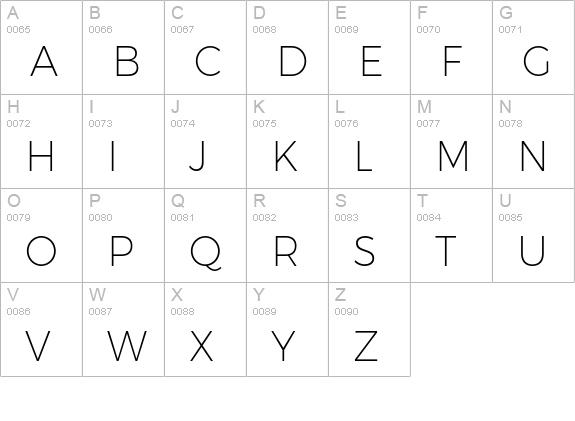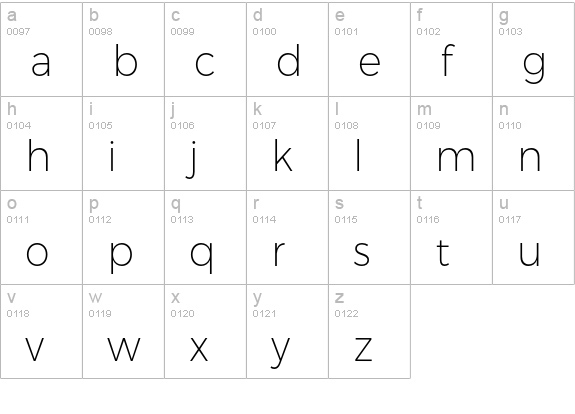
Trueno UltraLight Font Details
Trueno UltraLight is an airy, ultra-refined variant in the Trueno typeface family \xE2\x80\x94 well suited to minimalist headlines and refined display use.
Trueno UltraLight font is a stunning typeface that effortlessly combines elegance and simplicity. With its delicate and refined strokes, this font exudes a sense of sophistication and finesse. Its ultra-lightweight design adds a touch of grace to any project, making it a go-to choice for those seeking a font that is both chic and versatile. The Trueno UltraLight font offers a harmonious balance between contemporary aesthetics and timeless appeal. Its clean lines and slender letterforms create a sense of fluidity, making it perfect for various design purposes. Whether you are working on a branding project, editorial layout, or web design, this font is sure to elevate your work to new heights. One of the most remarkable aspects of Trueno UltraLight font is that it is freely available to download at FontsMarket.com. This means that you can easily access and utilize this exquisite font without any cost. This accessibility makes it an ideal choice for designers, students, and anyone who appreciates the beauty of typography. With its wide range of glyphs and meticulous attention to detail, Trueno UltraLight font ensures legibility and readability in both large and small sizes. Its versatility extends to multiple languages, allowing you to use it in international projects. Whether you need to convey a sense of sophistication or maintain a minimalist aesthetic, this font has got you covered. In conclusion, Trueno UltraLight font is a breathtaking typeface that effortlessly captures attention with its elegance and simplicity. Its free availability at FontsMarket.com makes it an invaluable resource for designers and creatives alike. Embrace the beauty of typography and elevate your projects with the timeless charm of Trueno UltraLight font.